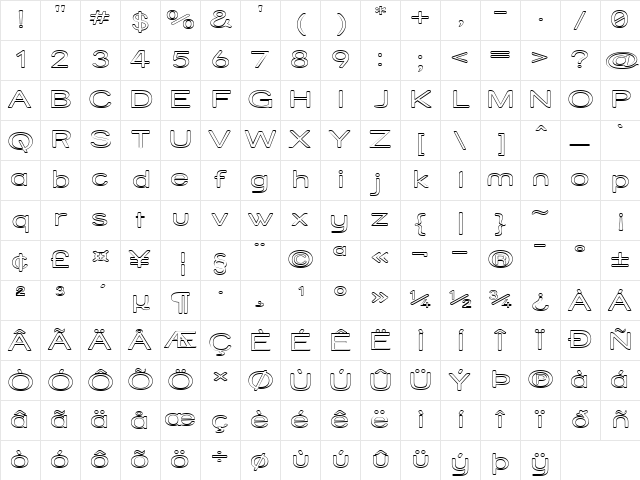
Street Variation - Outline Exp Regular
Design Context for Street Variation - Outline Exp
Street Variation - Outline Exp is built around its visual character rather than neutral utility - its distinctive forms are designed to make an impression at display sizes.
Font Pairing: Pair with a clean neutral sans-serif for body copy to let Street Variation - Outline Exp's character lead without overwhelming the composition.
Pro Tip: Use Street Variation - Outline Exp exclusively at display sizes - it was designed to be seen, not read at length. Let a neutral companion handle body copy.